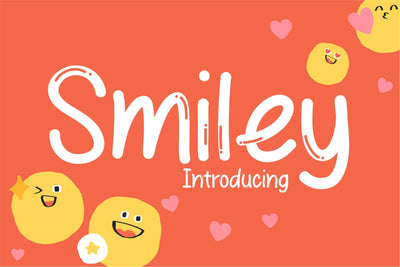
Smiley Font
Smiley is a display font with a cute, fun, and informal feel. It is perfect for children’s projects, blog posts, logos, branding, ads, invitations, greeting cards, planners, photo albums, decorations, and much more. It will be a wonderful asset to your fonts library as it has the potential to enhance any creation. Add it to any of your designs, and enjoy the results!